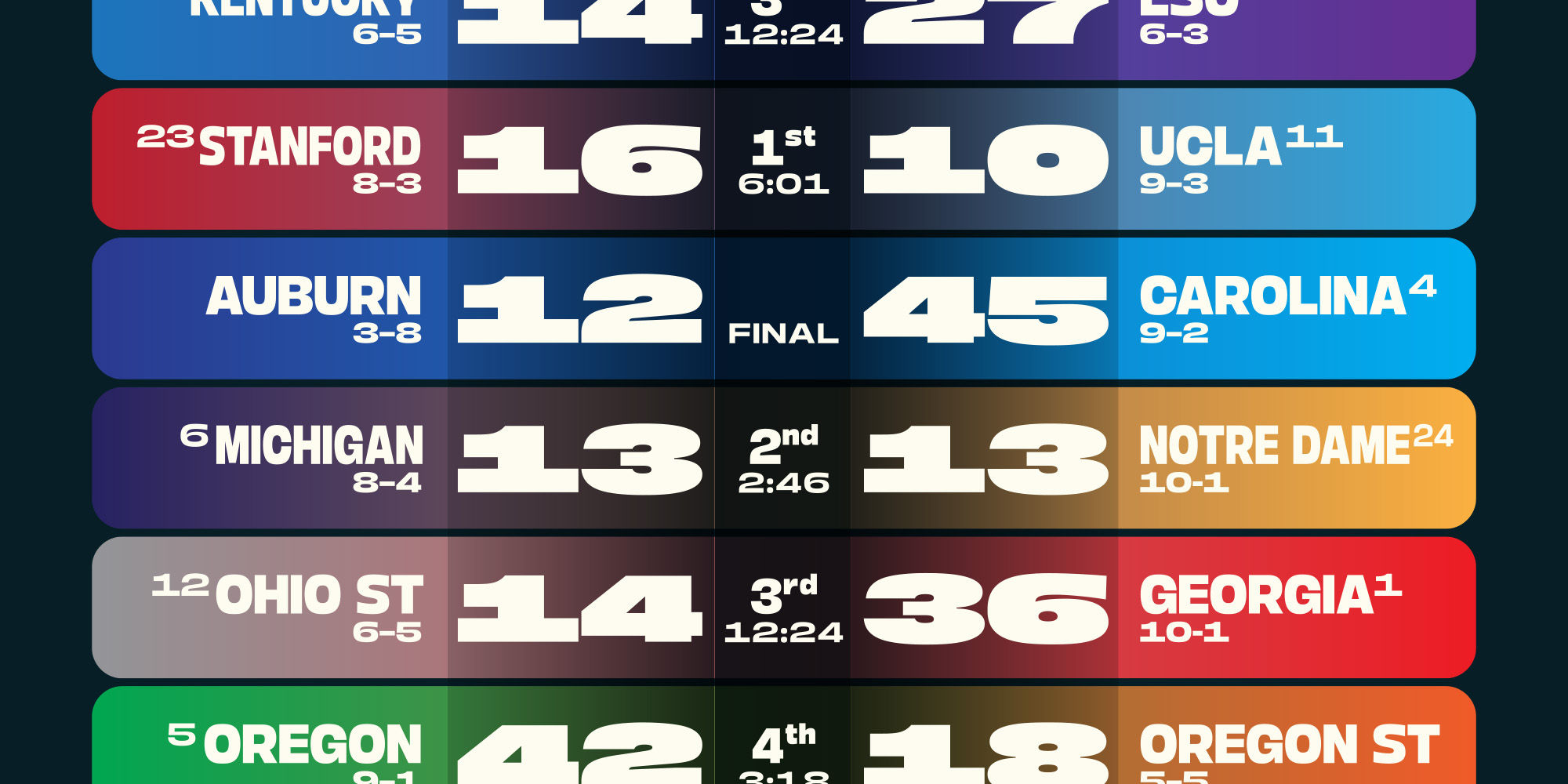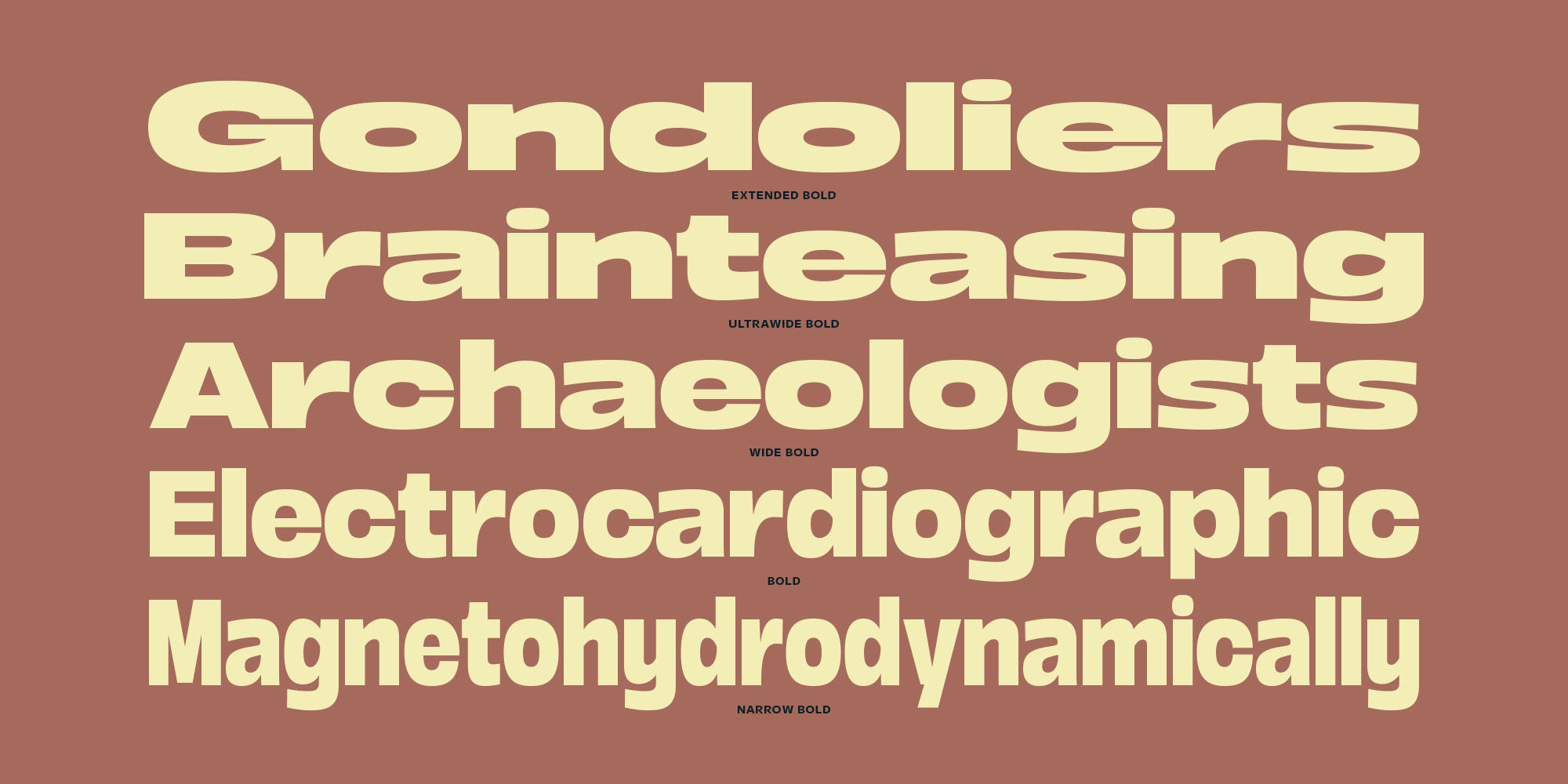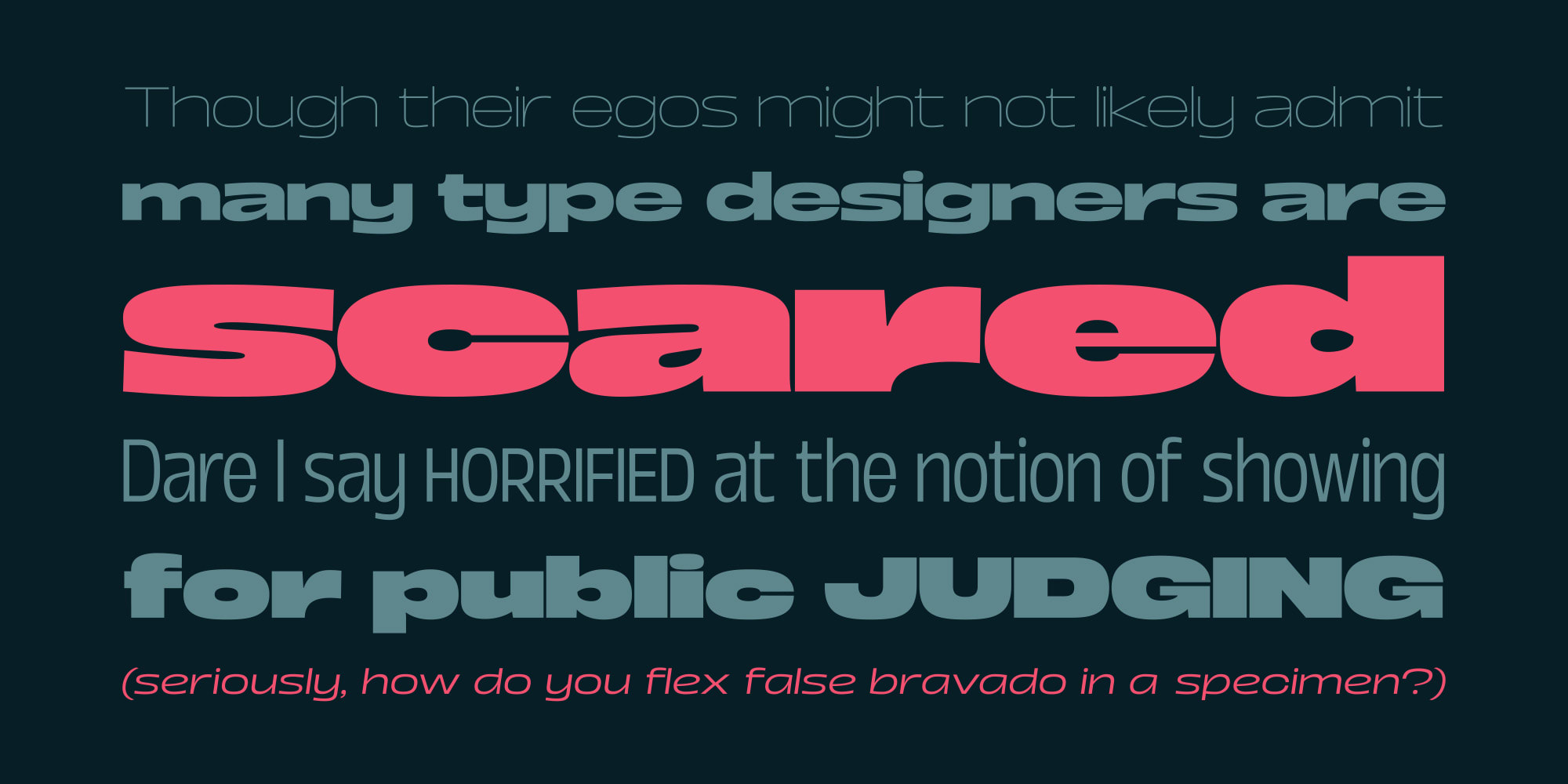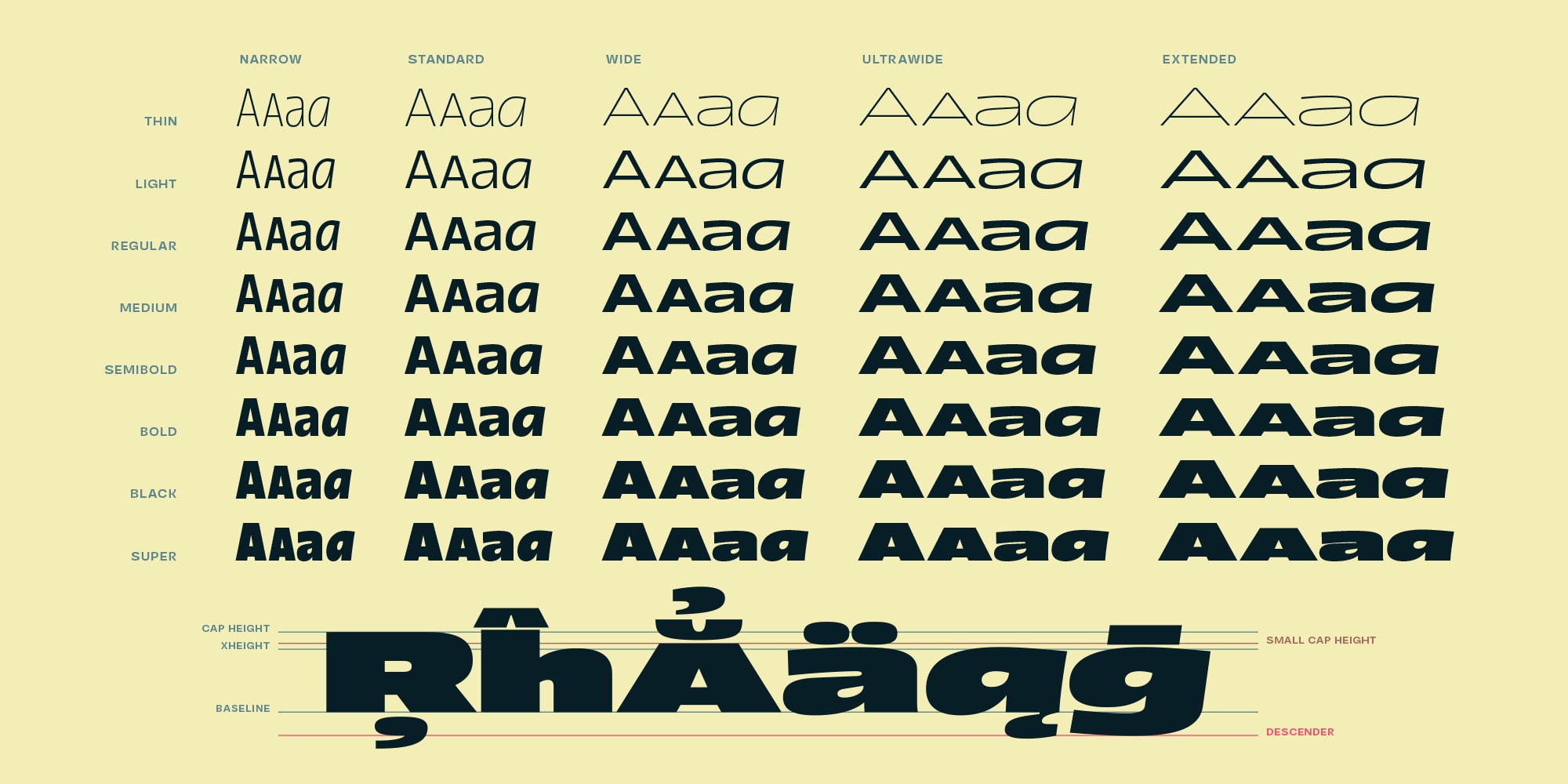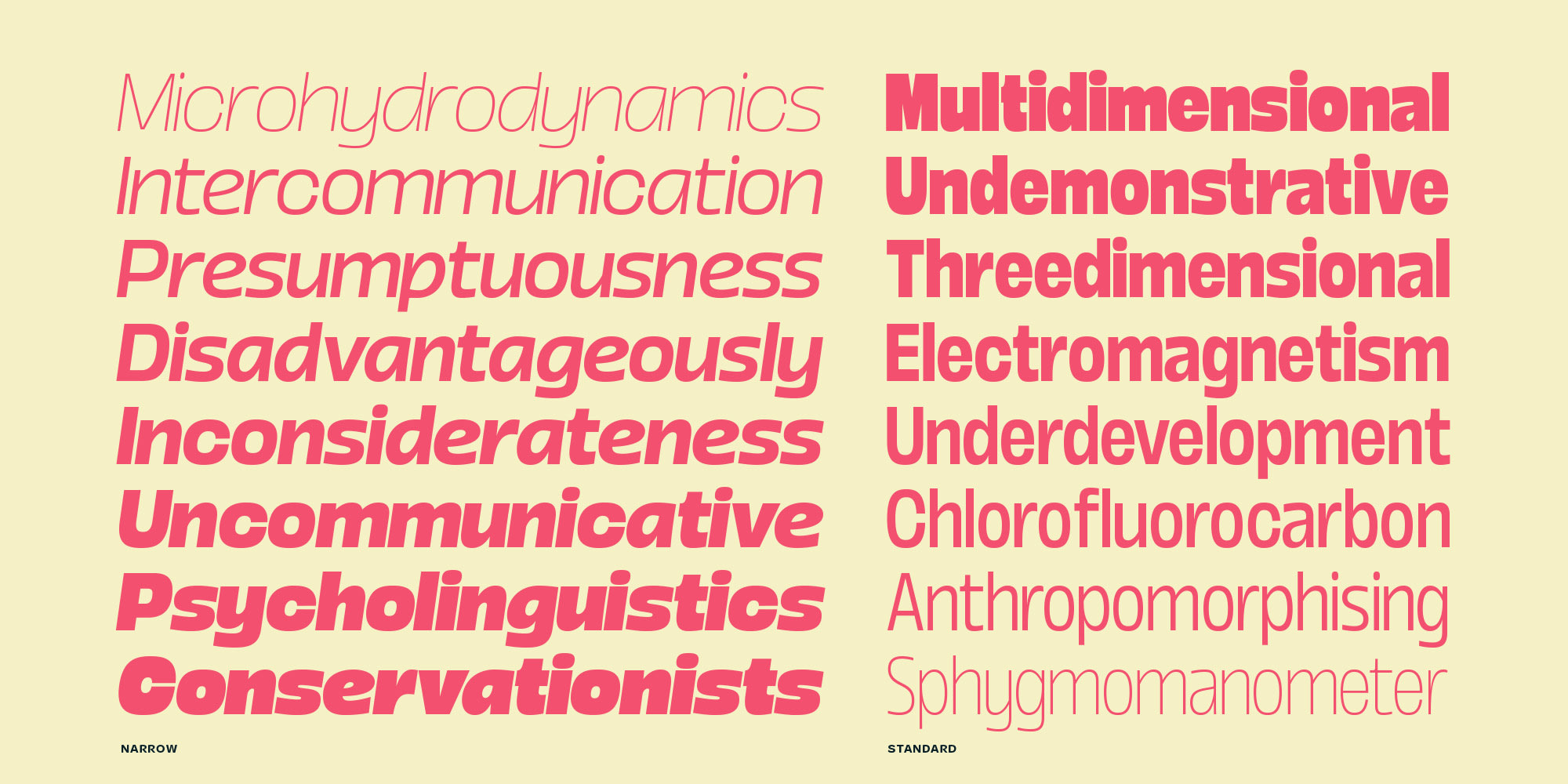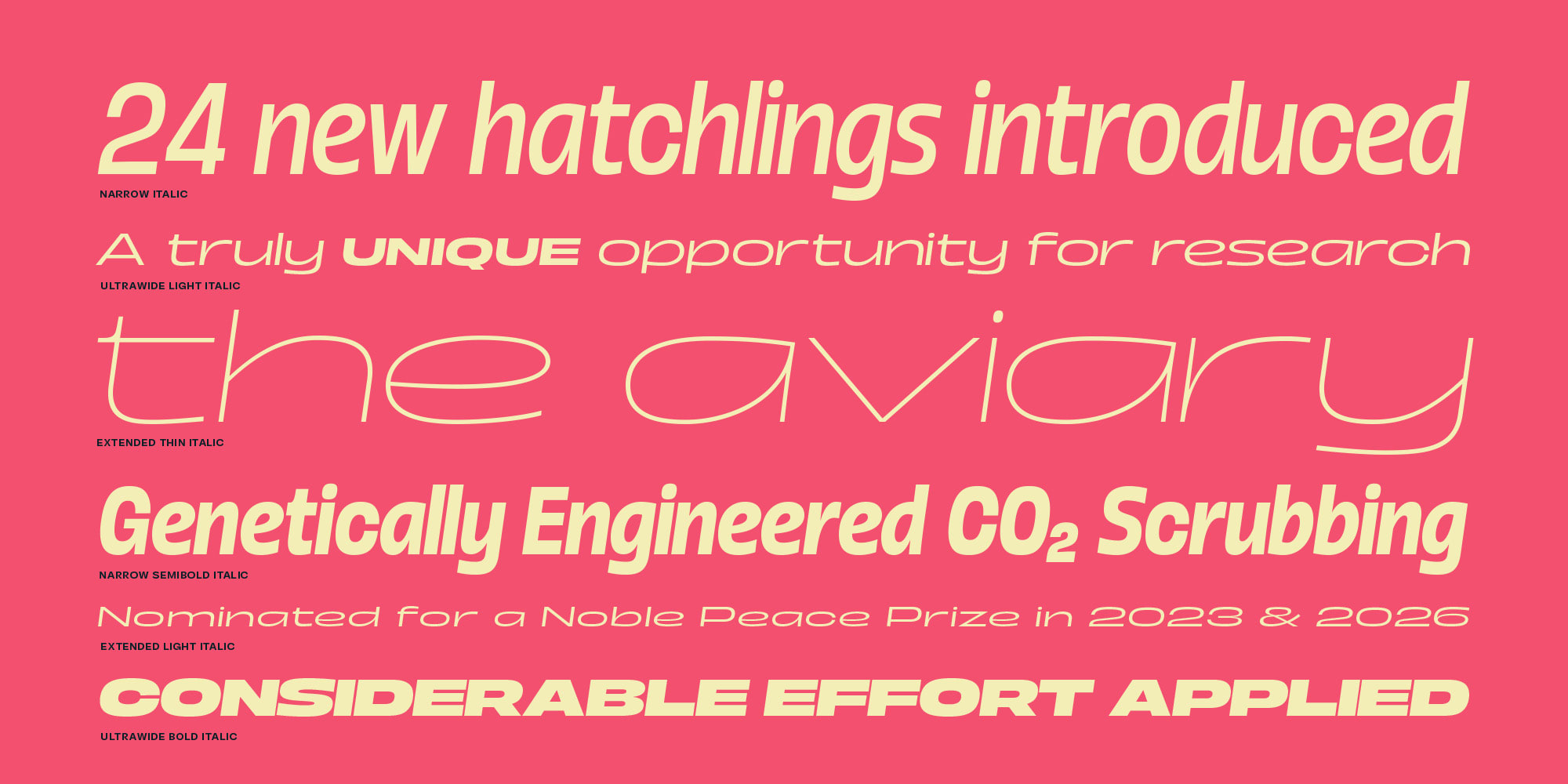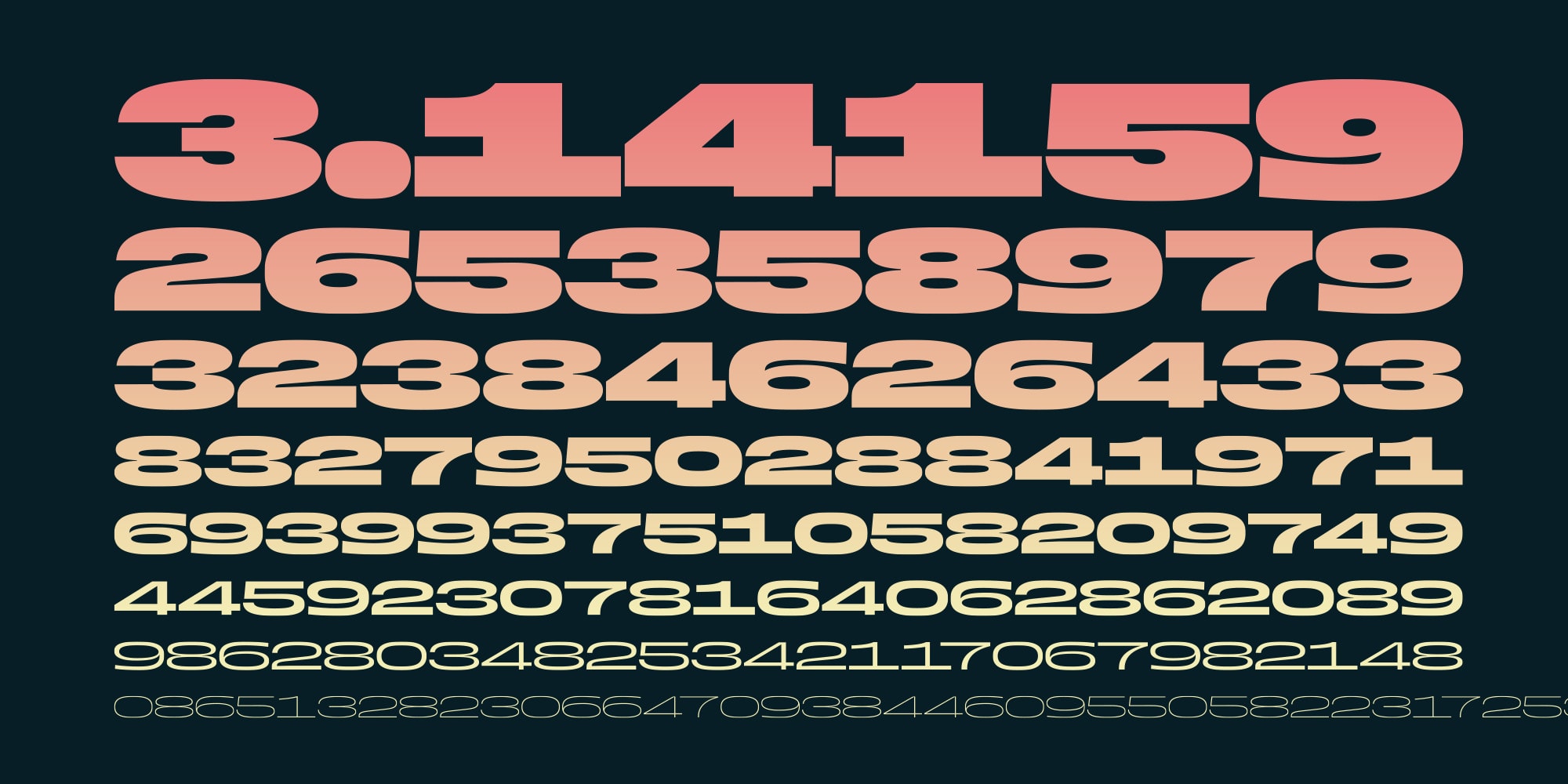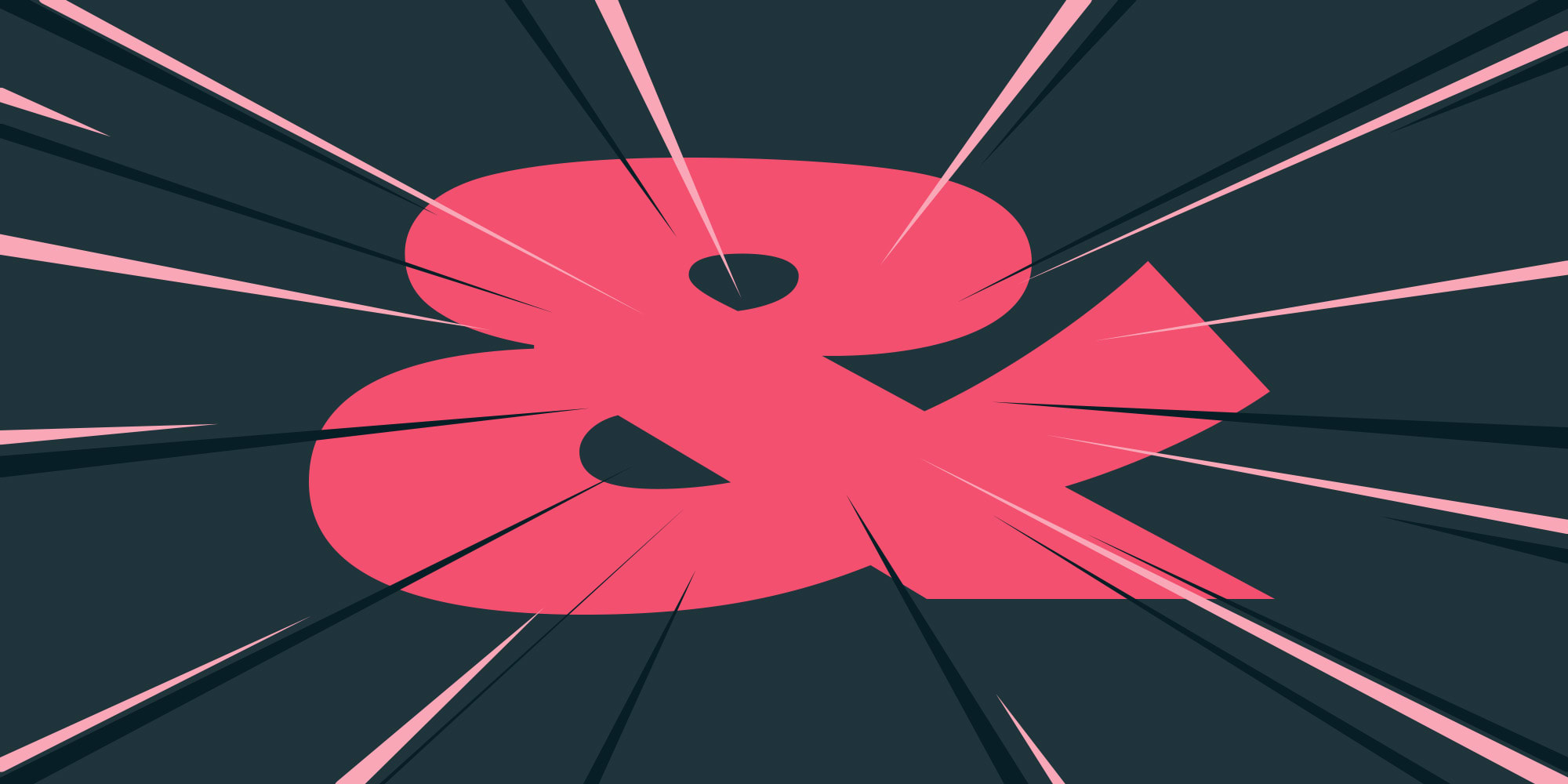
Boom Sans
fi fl
Standard Ligaturesliga
Small
Small Capssmcp
234/567
Fractionsfrac
2nd 3rd
Ordinalsordn
I y
Stylistic Set 1ss01
$12896
Stylistic Set 2ss02
Boom Sans doesn't whisper. It doesn't politely clear its throat. It walks into the room like it owns the lease, plants both feet, and says exactly what it came to say. This is a typeface built for messages that refuse to be missed, for headlines that need to land like a closing argument, for brands that have run out of patience with quiet design.
Eighty styles strong, Boom Sans spans five widths and eight weights with a full set of matching italics, giving you a complete tonal range from a confident whisper at the lighter end to a full-throated roar at the heaviest. Every cut is engineered with the same architectural confidence: balanced curves that hold their shape under pressure, smooth transitions between strokes that read clean at any size, and a stance, an actual posture, that commands the page without overpowering it.
What makes Boom Sans different is that all that personality never tips over into noise. The proportions are disciplined. The terminals are decisive. The geometry is precise without ever feeling cold or mechanical. Push it up to display sizes and it has the swagger to carry a billboard. Bring it down to text and it still pulls its weight with surprising grace.
Use it for posters that need to punch above their weight. Use it for editorial spreads that want a strong voice without shouting. Use it for branding that needs to feel both contemporary and inevitable. Boom Sans was built for the moment when polite design is no longer good enough, when the message has to land the first time, every time.